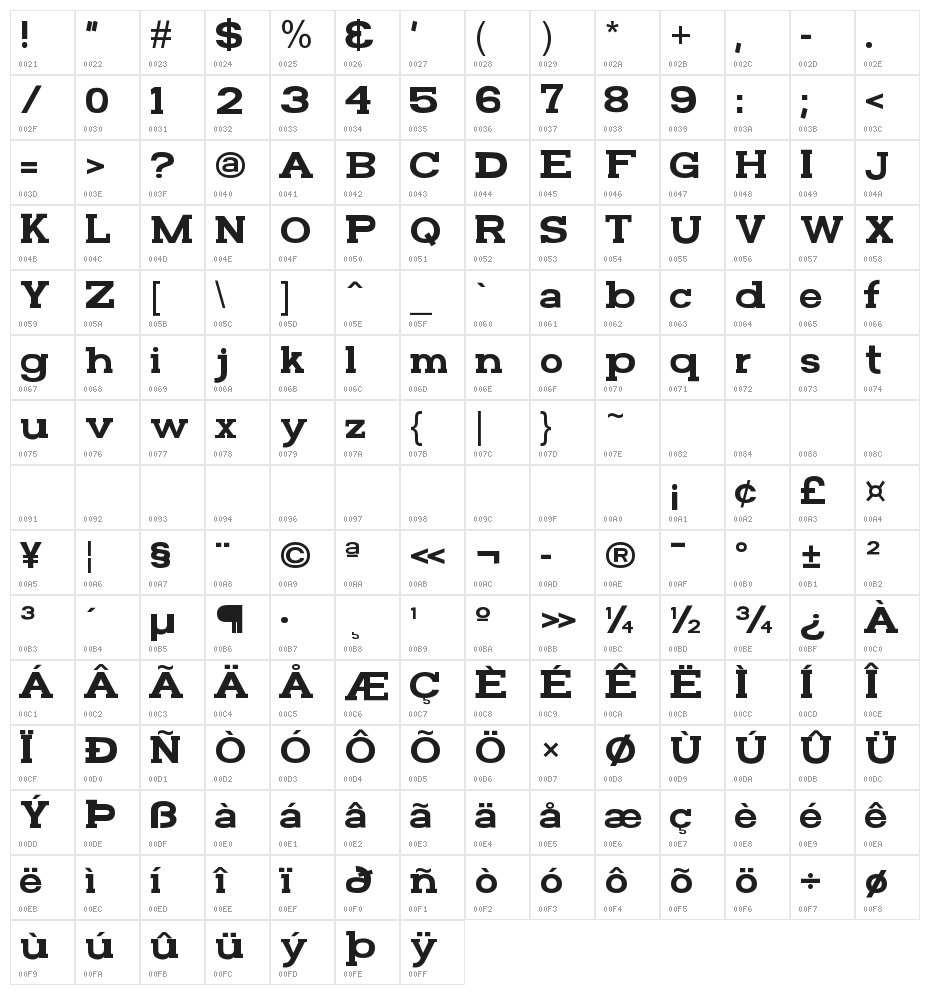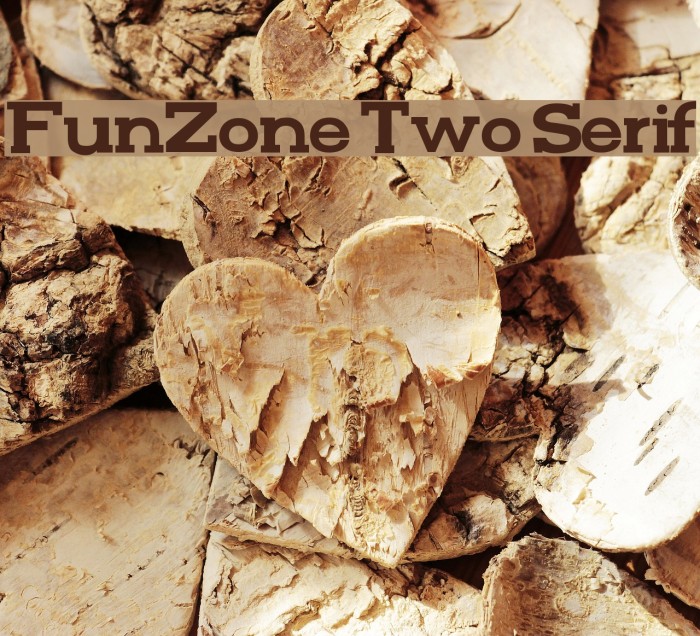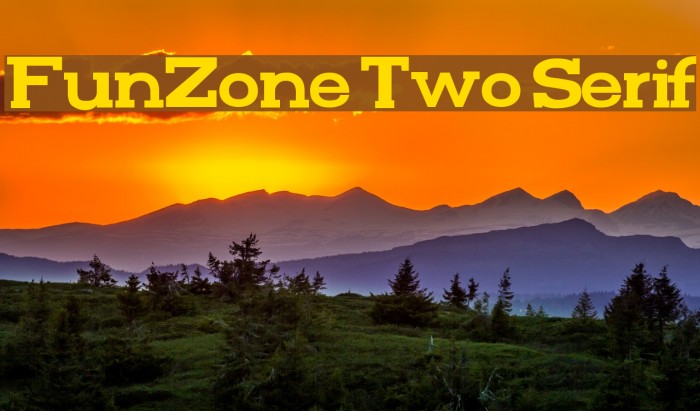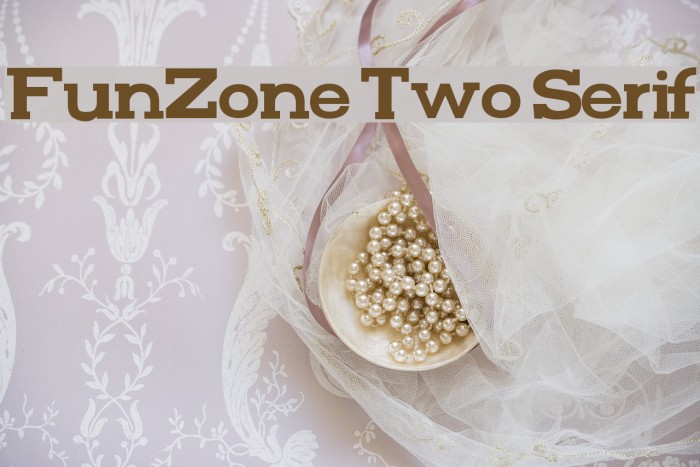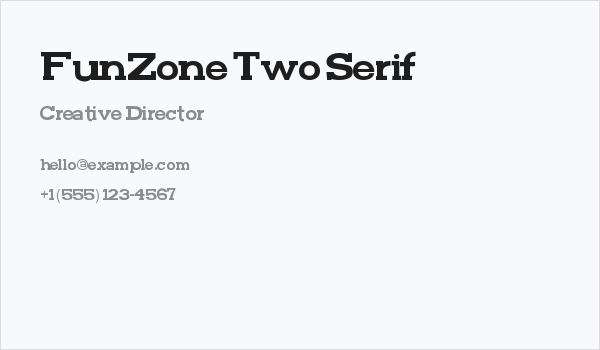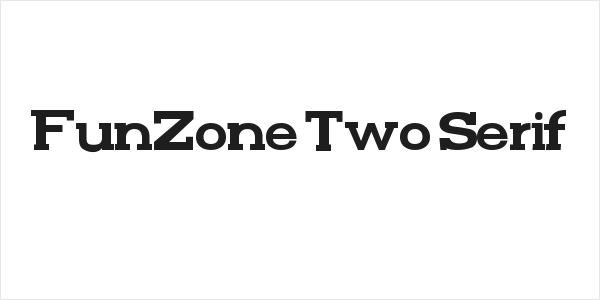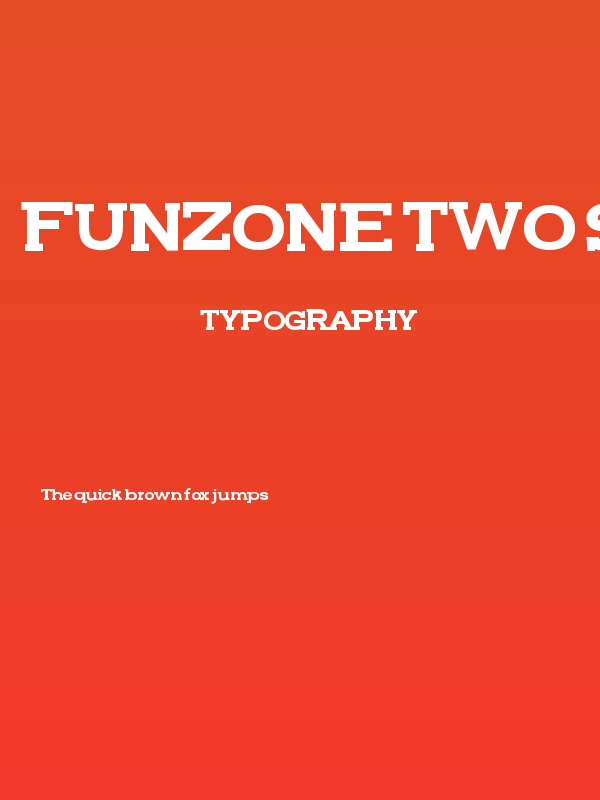
FunZone Two Serif Font
FunZone Two Serif Description
This font features a bold and robust serif style with strong, angular lines and a commanding presence. The uppercase letters are characterized by their thick strokes and pronounced serifs, giving them a classic yet modern appeal. The lowercase letters maintain a consistent weight, ensuring readability while adding a touch of elegance. Numbers are equally bold, making them stand out, and the special characters are designed with the same attention to detail, ensuring they complement the overall style. This font's design is versatile, suitable for both digital and print media, where a strong and authoritative typeface is required.
| Overall Style | Modern Classic |
| Proposed Projects | Ideal for branding, headlines, posters, and editorial design where a strong serif presence is needed. |